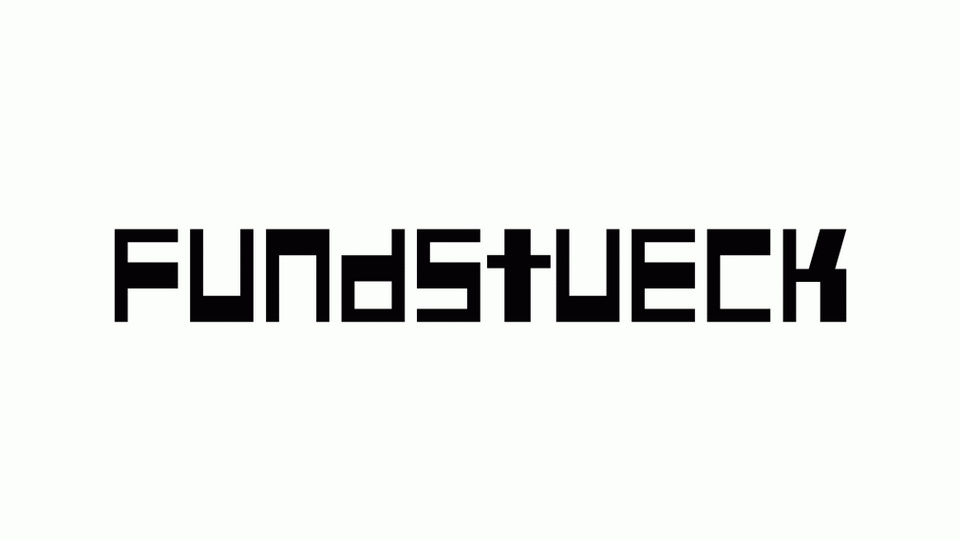
Download Fundstueck font, a display typeface inspired by a rusty piece of metal, a coarse but decorative font was created. Fundstueck doesn’t really have to be extremely legible, but it’s great for display and editorial use.
Designer: ingoFonts